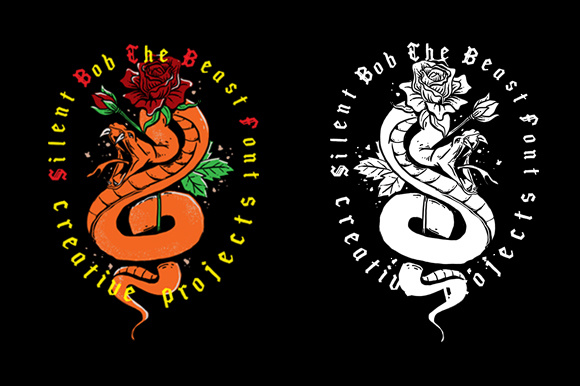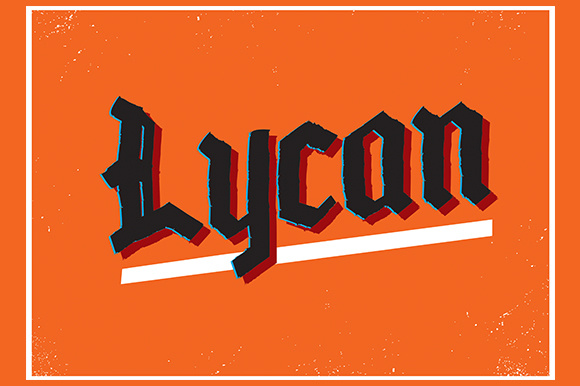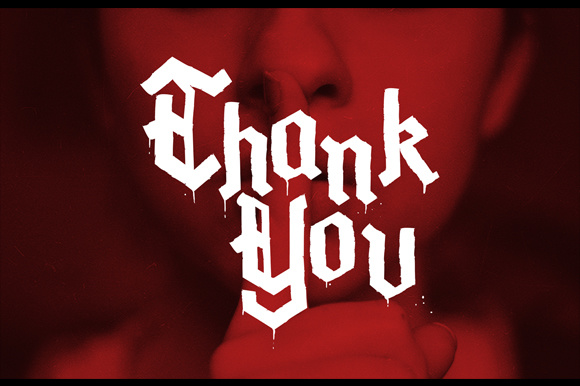
Introduction to SilentBob Font
Silent Bob is a new and casual blackletter font with a modern and casual feel.
Silent Bob is a new and casual blackletter font with a modern and casual feel. Silent Bob is suitable for horror movie covers, books, magazines and more